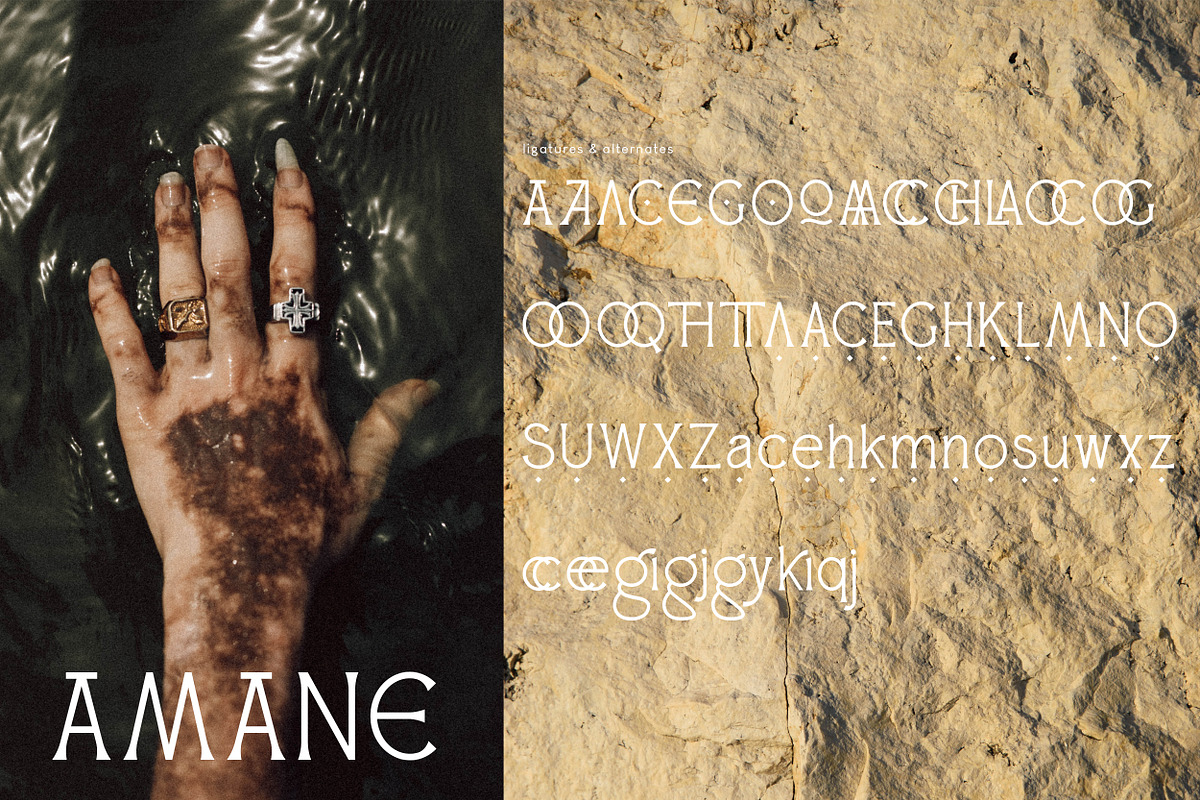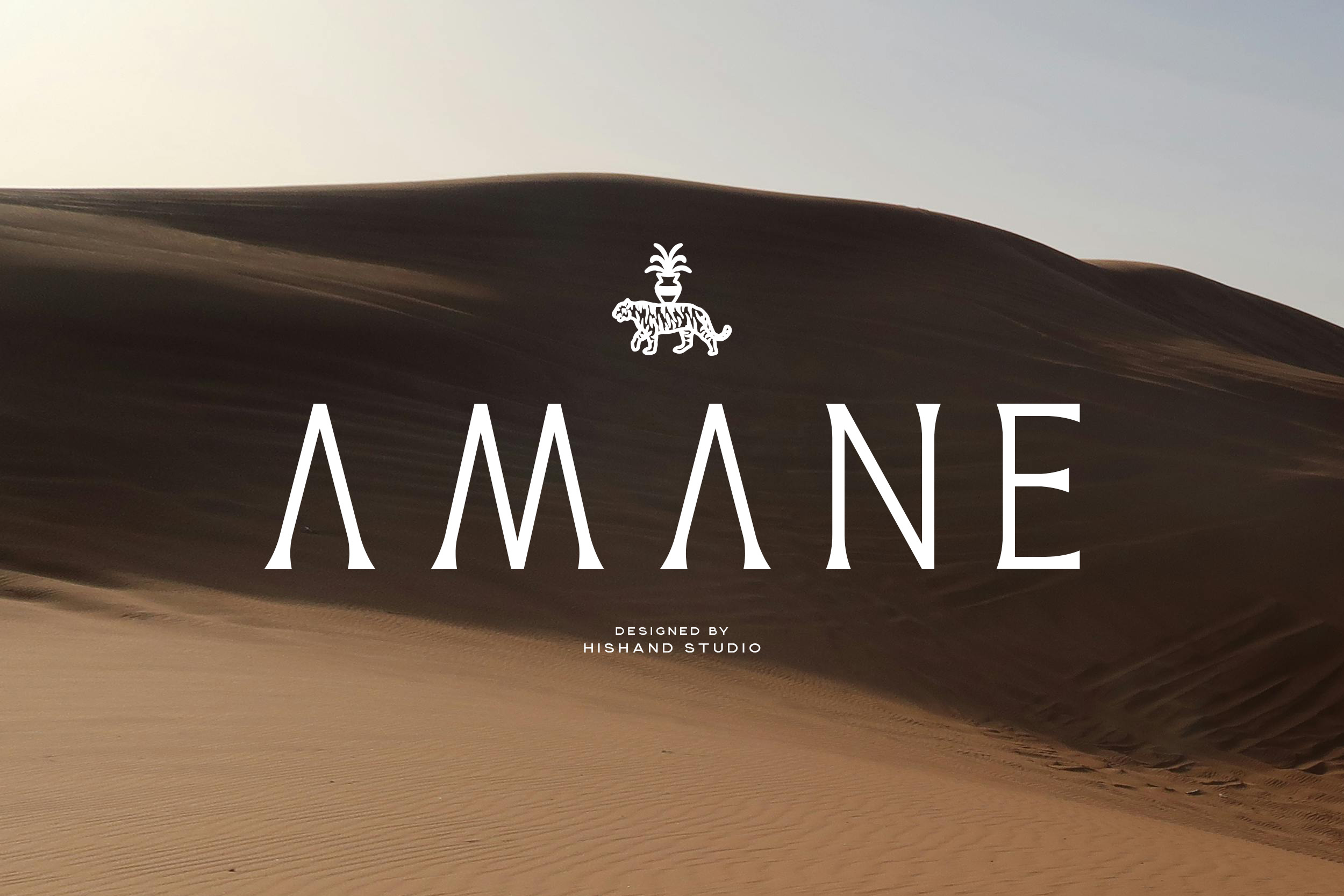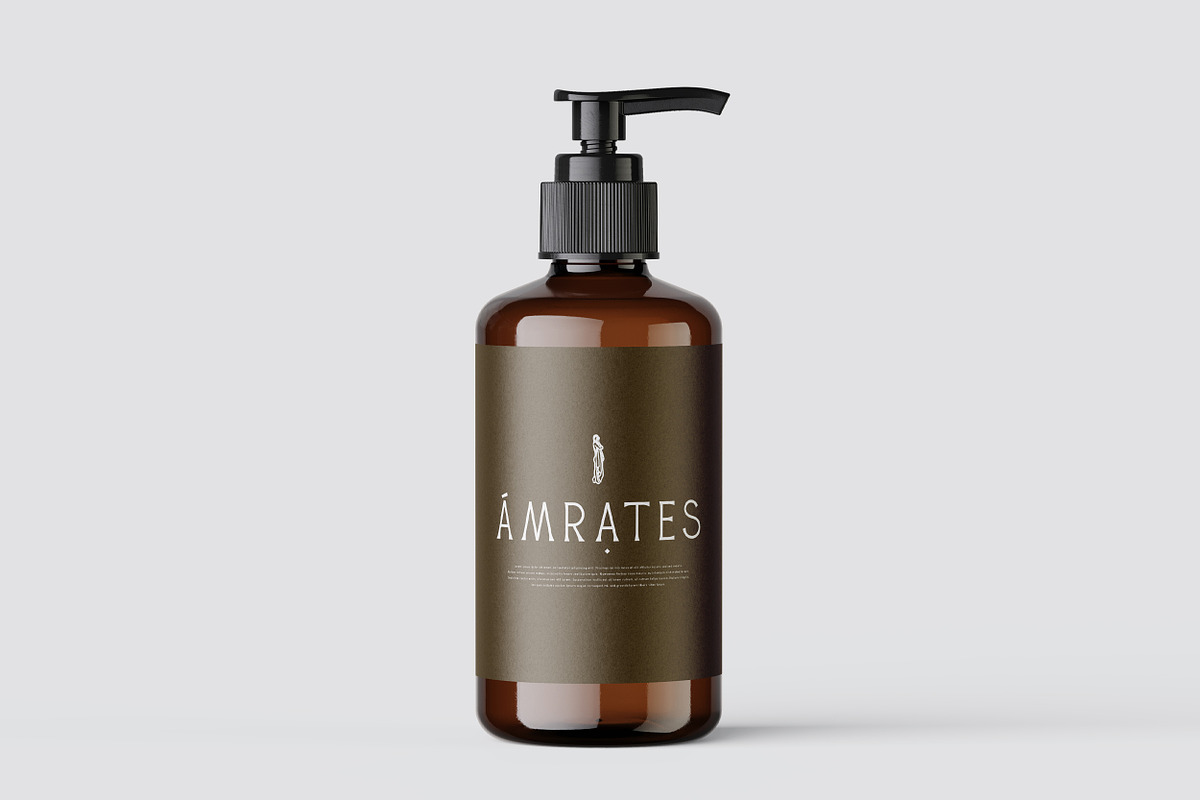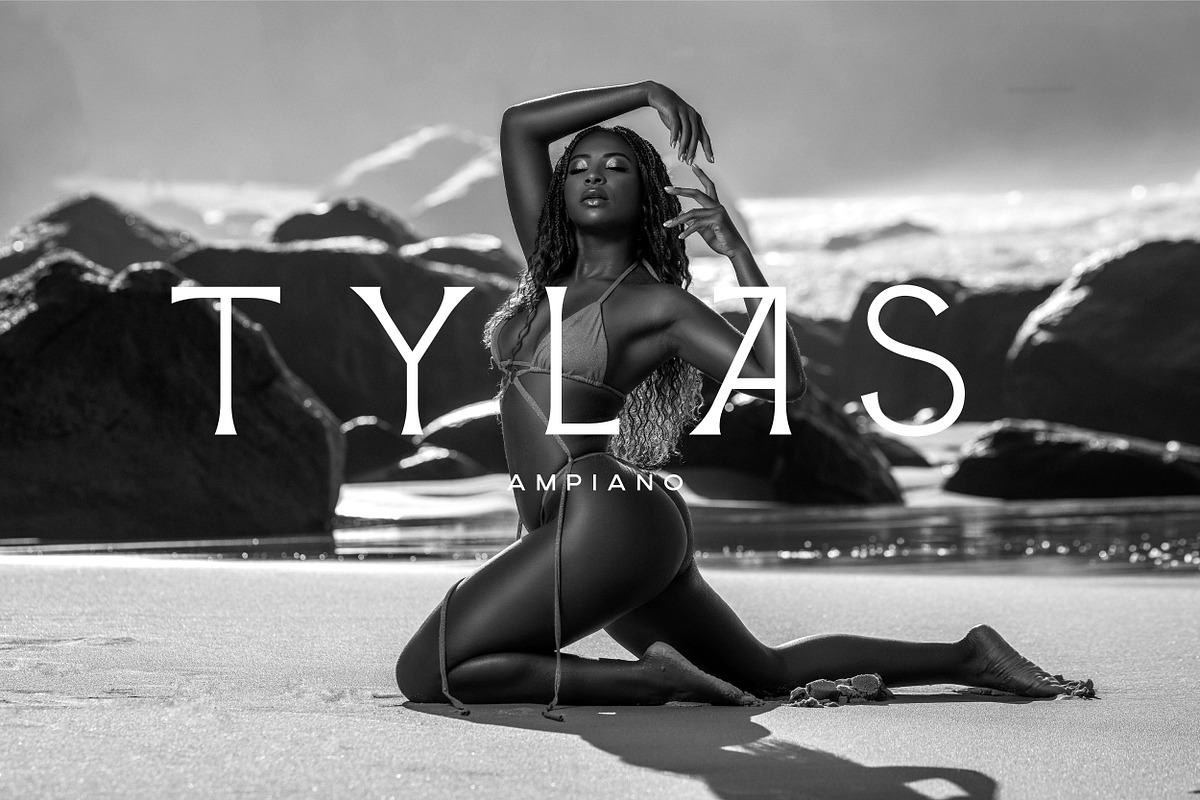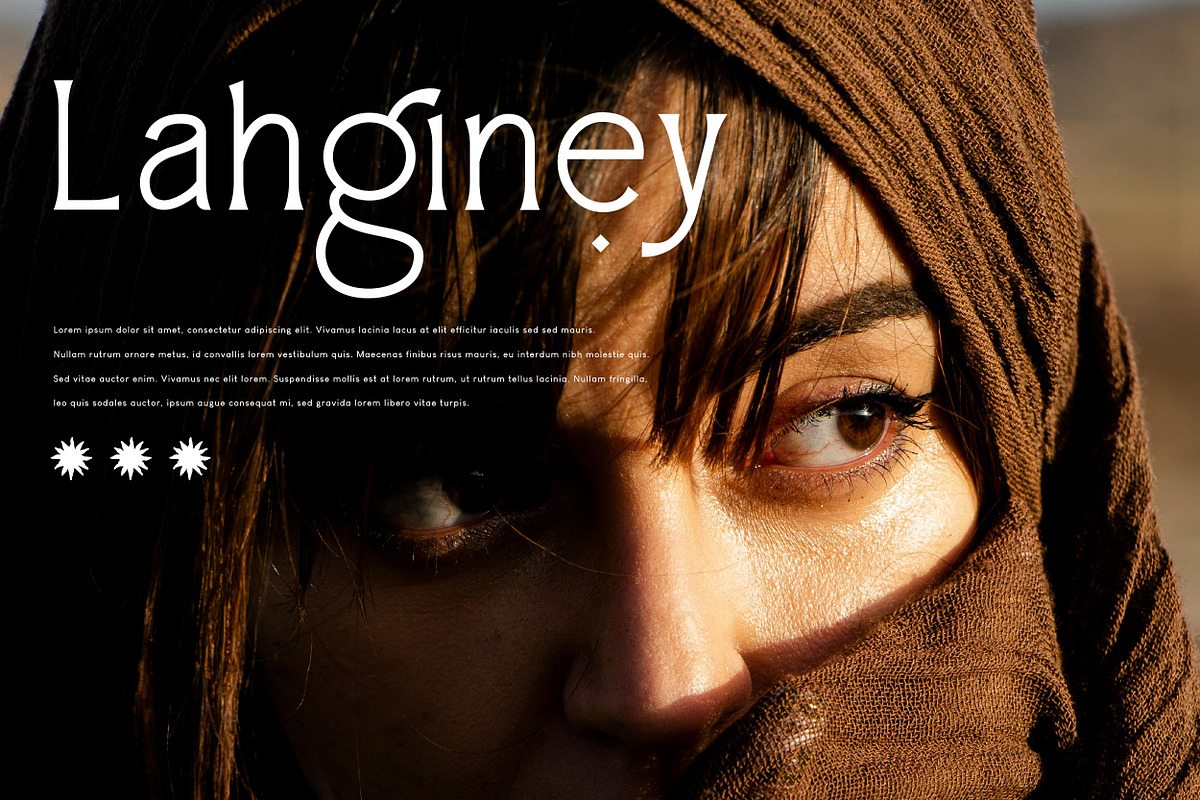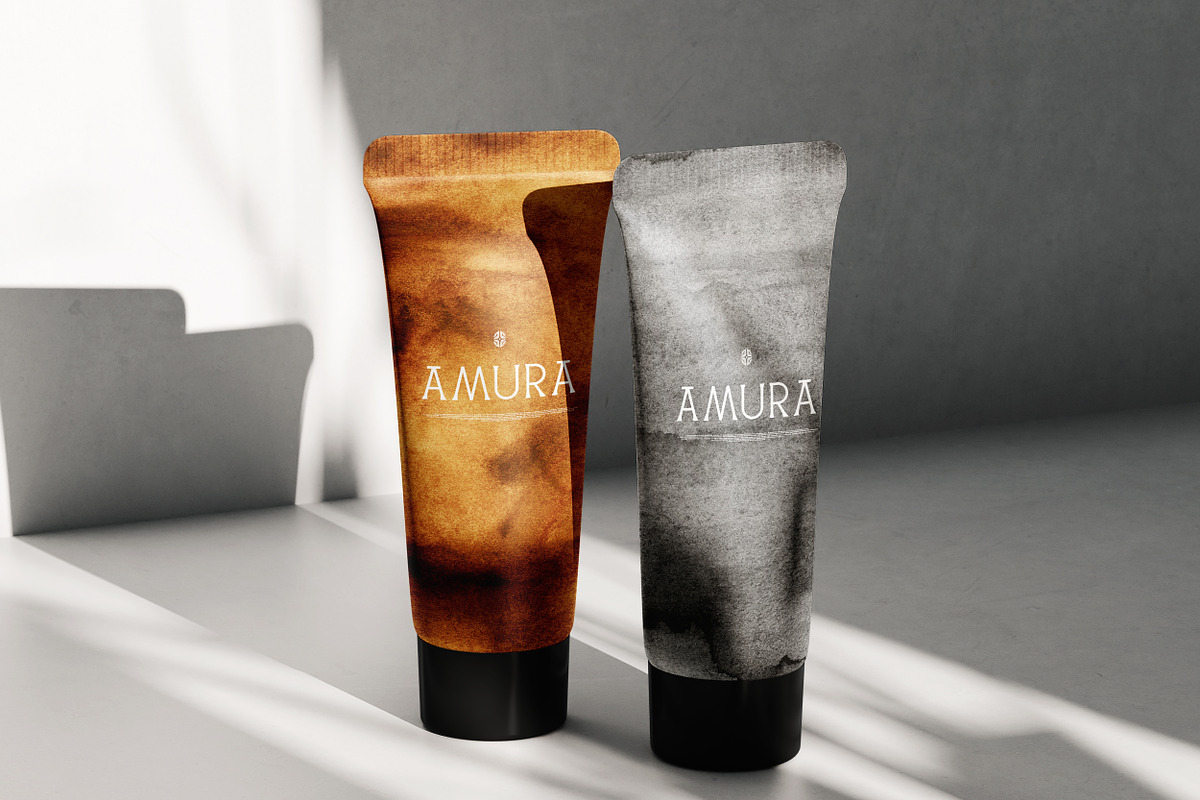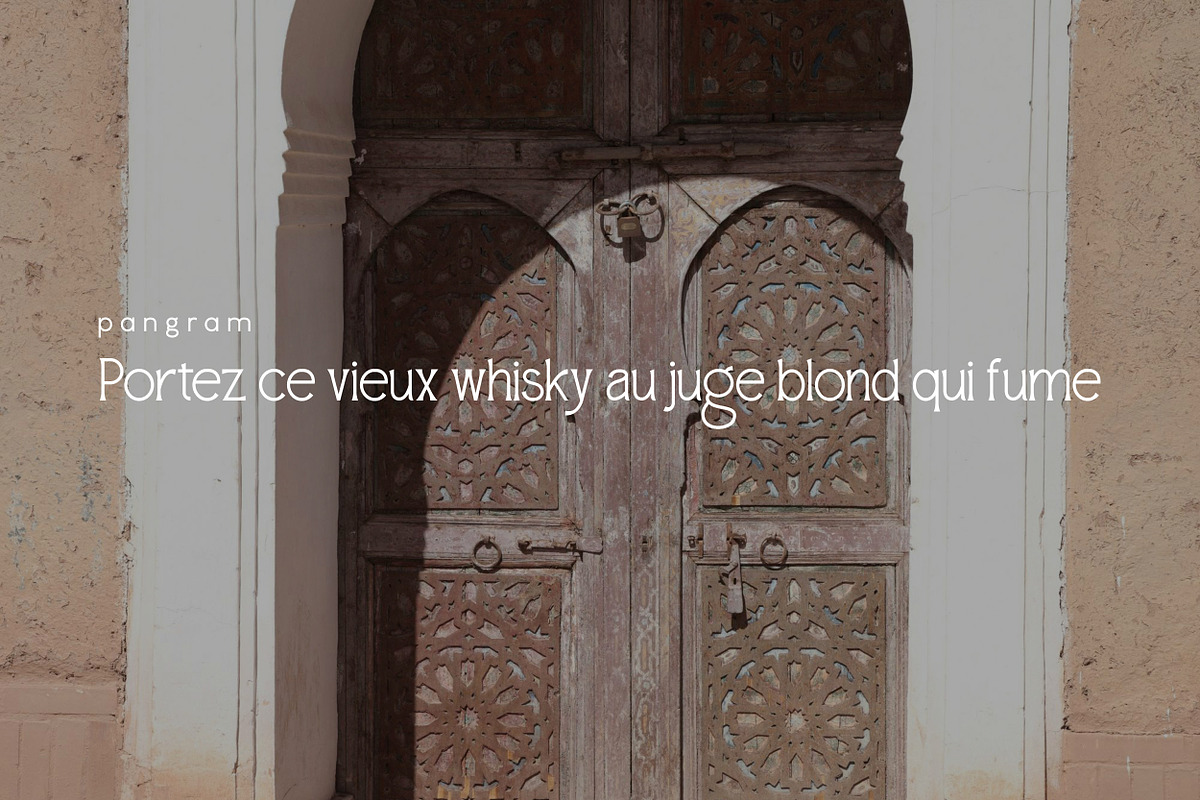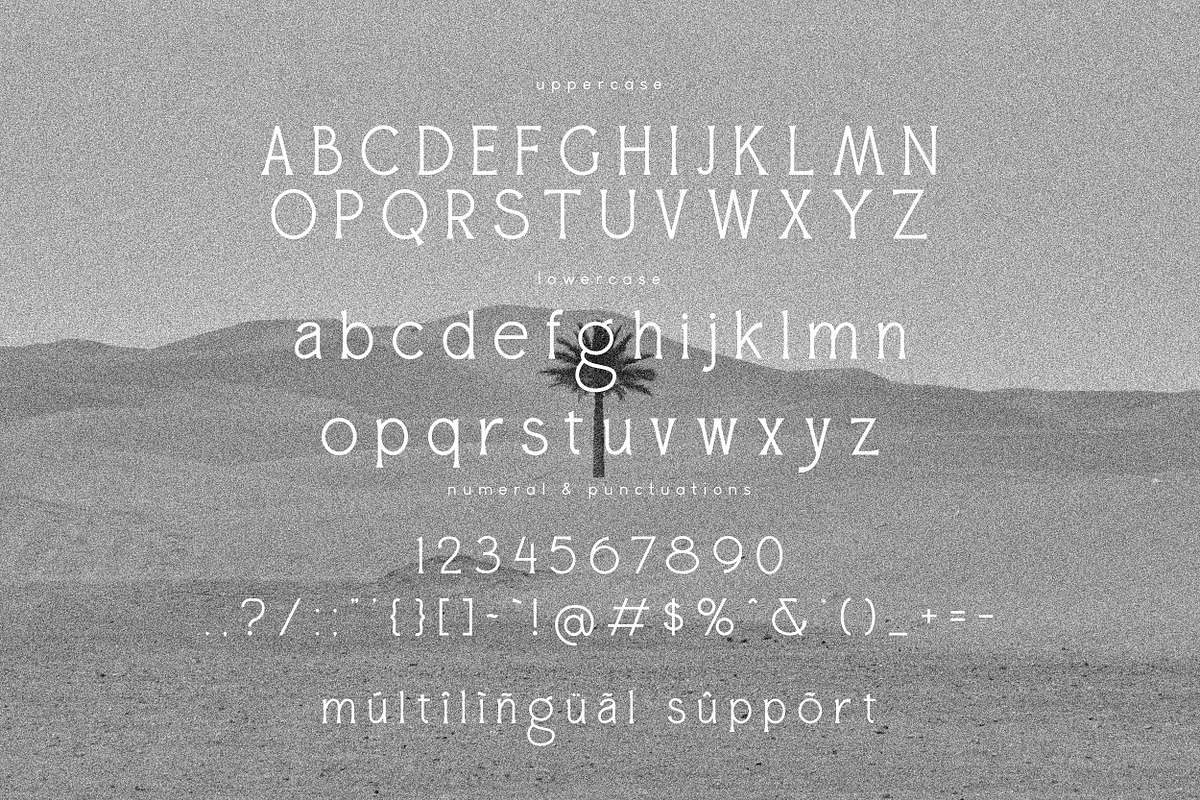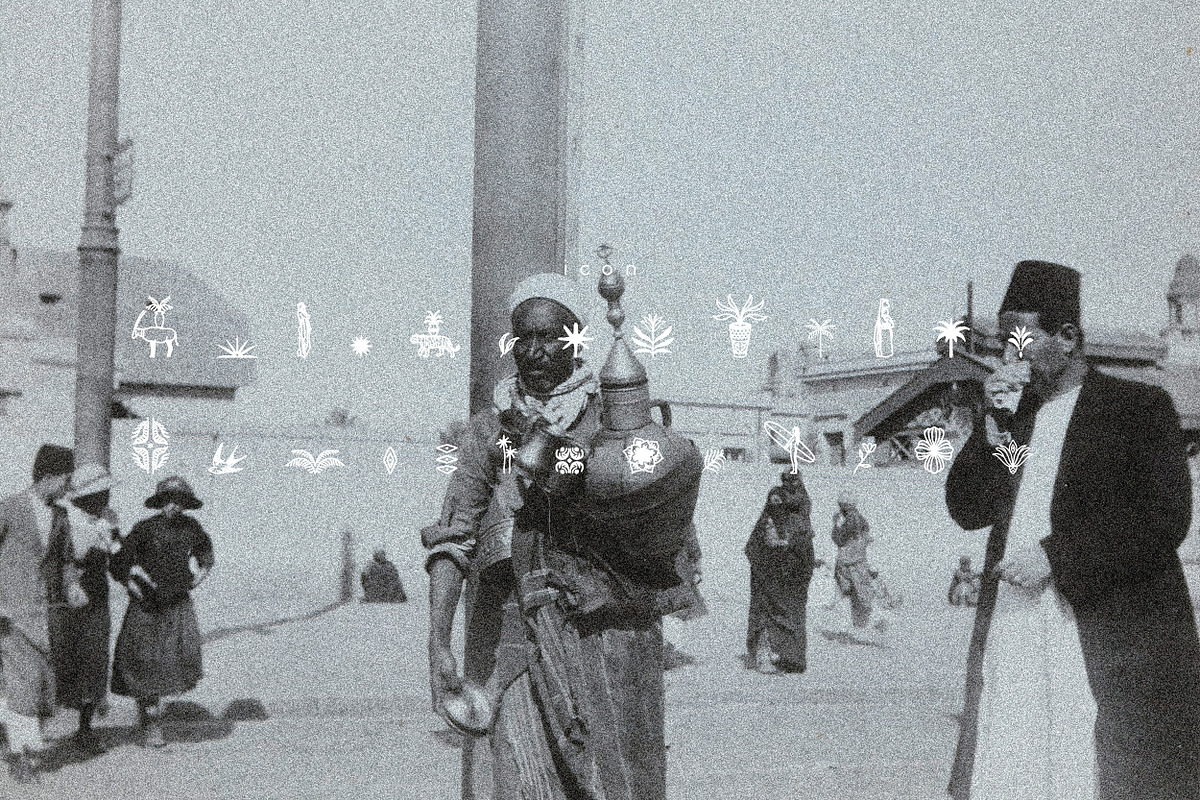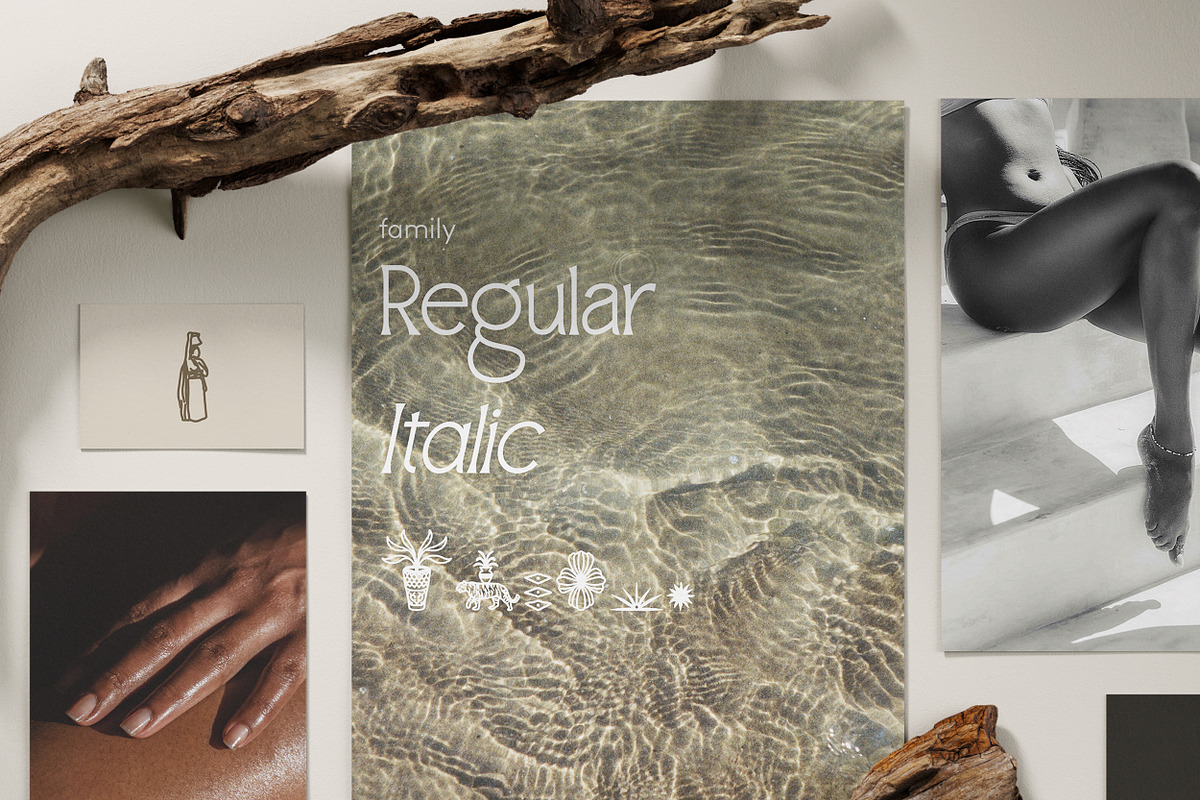
AMANE Serif Font
Introducing AMANE, a refined serif display font inspired by the elegance of desert landscapes. With sleek lines and distinctive letterforms, AMANE brings a sense of sophistication and mystique, perfect for luxury branding, editorial titles, and artistic projects. Its bold yet graceful design stands out beautifully on minimal backgrounds, making each character feel like a statement piece. AMANE blends timeless tradition with a modern edge, creating a unique and captivating visual style ideal for projects that demand attention. Complete with
- alternates
- regular
- Italic
- icon
- multilingual support